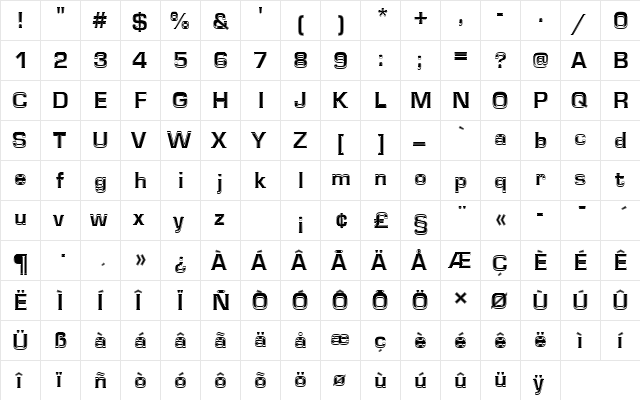
EurostileTBolIn1 Regular
Design Context for EurostileTBolIn1 Typeface
EurostileTBolIn1 takes a measured approach to typography — its balanced proportions and neutral character make it a reliable workhorse for both digital and print work.